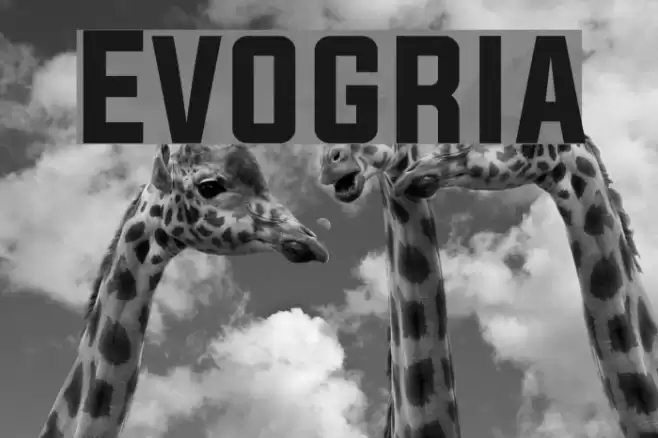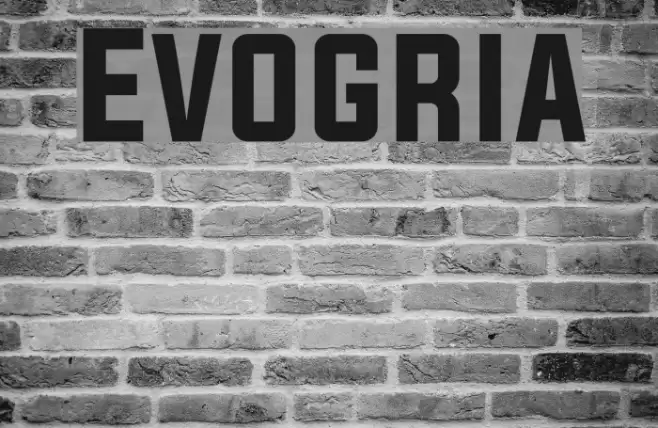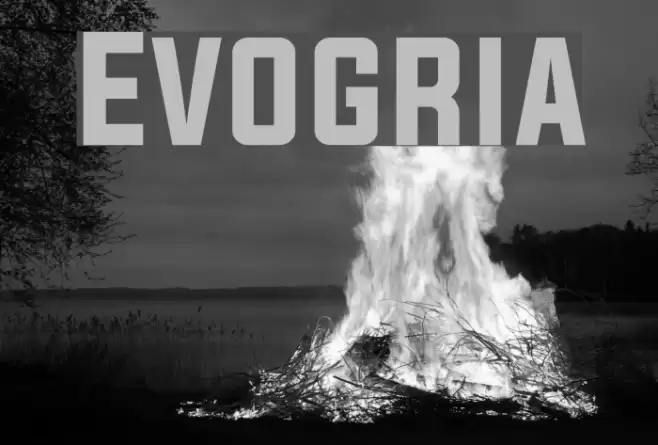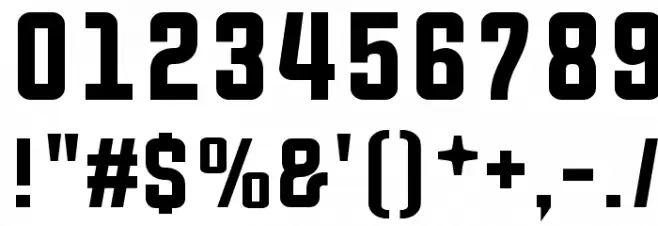
Evogria Font
Evogria Description
This font features a bold and impactful design with strong geometric shapes and a modern aesthetic. The uppercase letters are uniform in height, creating a cohesive and structured appearance. The numerals are equally bold, ensuring readability and consistency across different uses. The special characters maintain the same weight and style, providing a comprehensive set for various applications. The overall design is clean and straightforward, making it suitable for attention-grabbing headlines and branding materials.
A bold, modern font with geometric shapes and strong visual impact from Uncategorized fonts.
- Proposed Projects: Ideal for branding, headlines, posters, and digital media where a strong, modern presence is required.